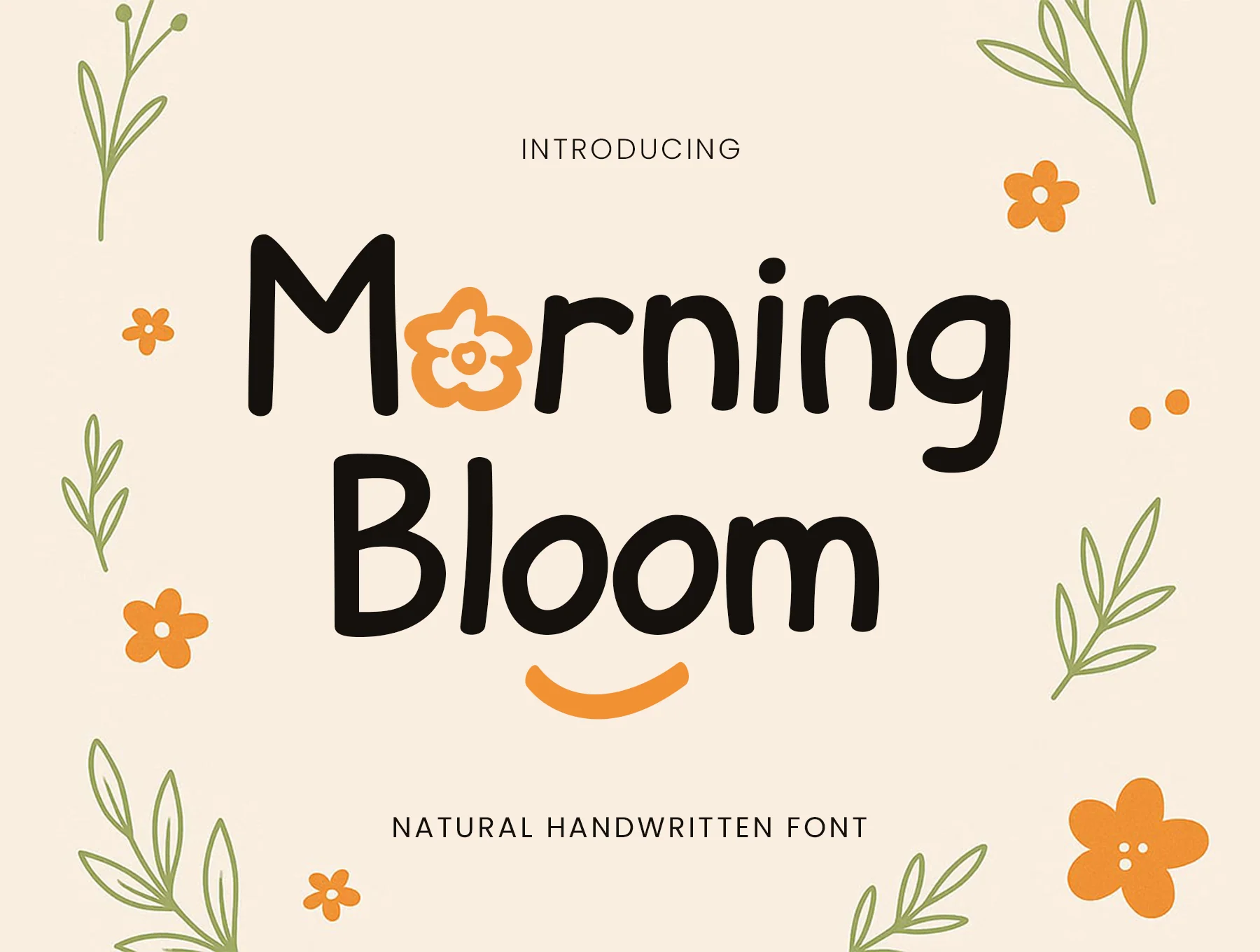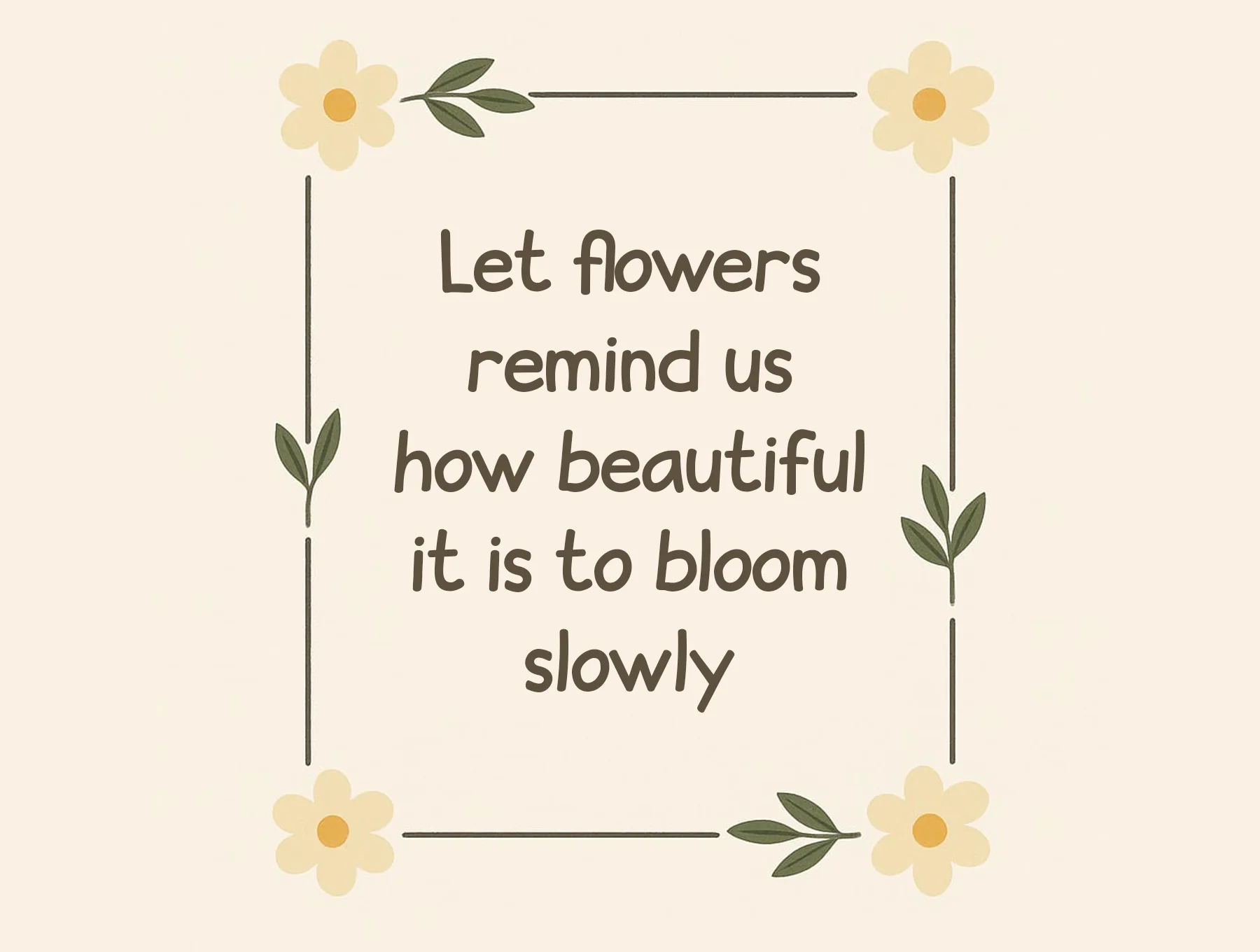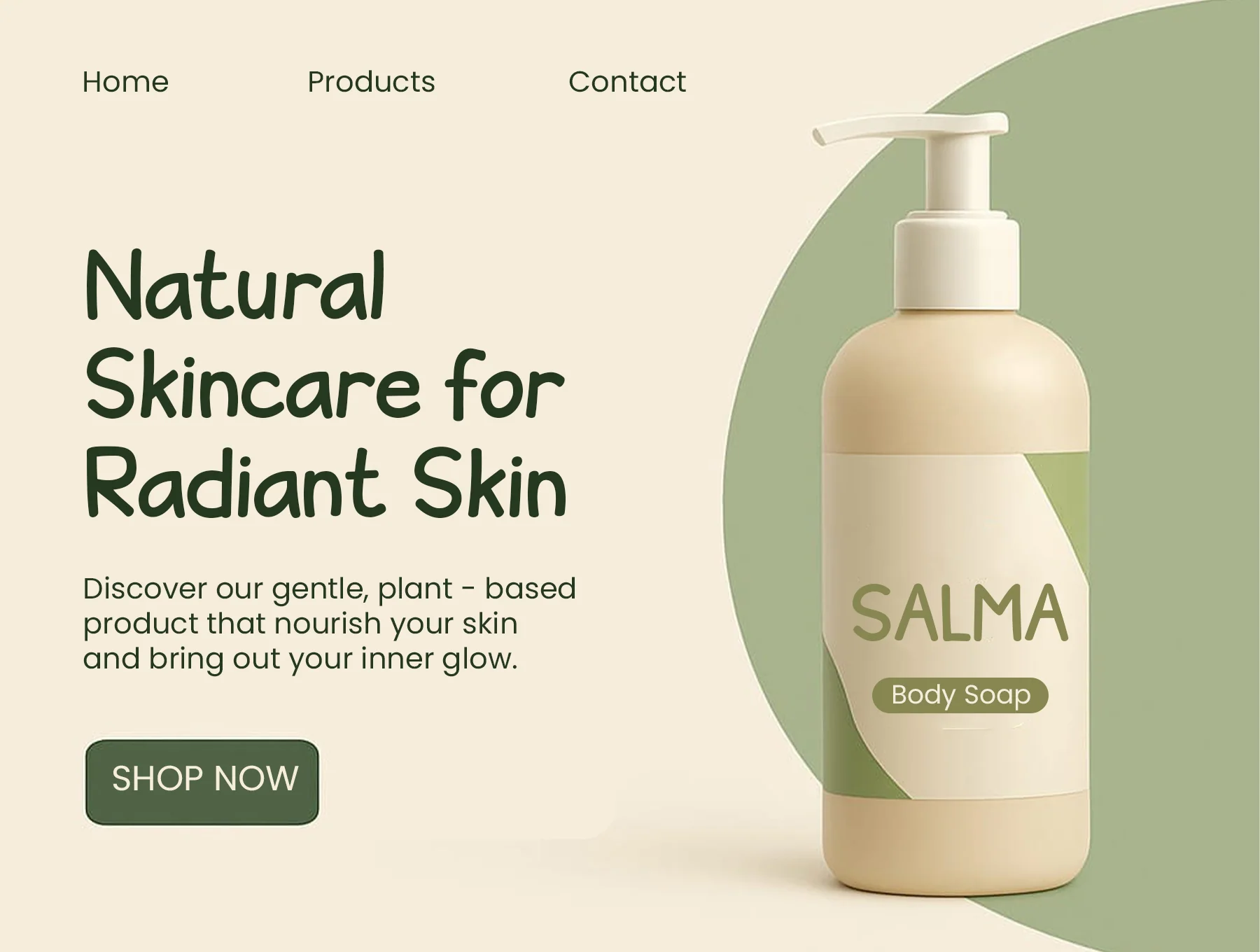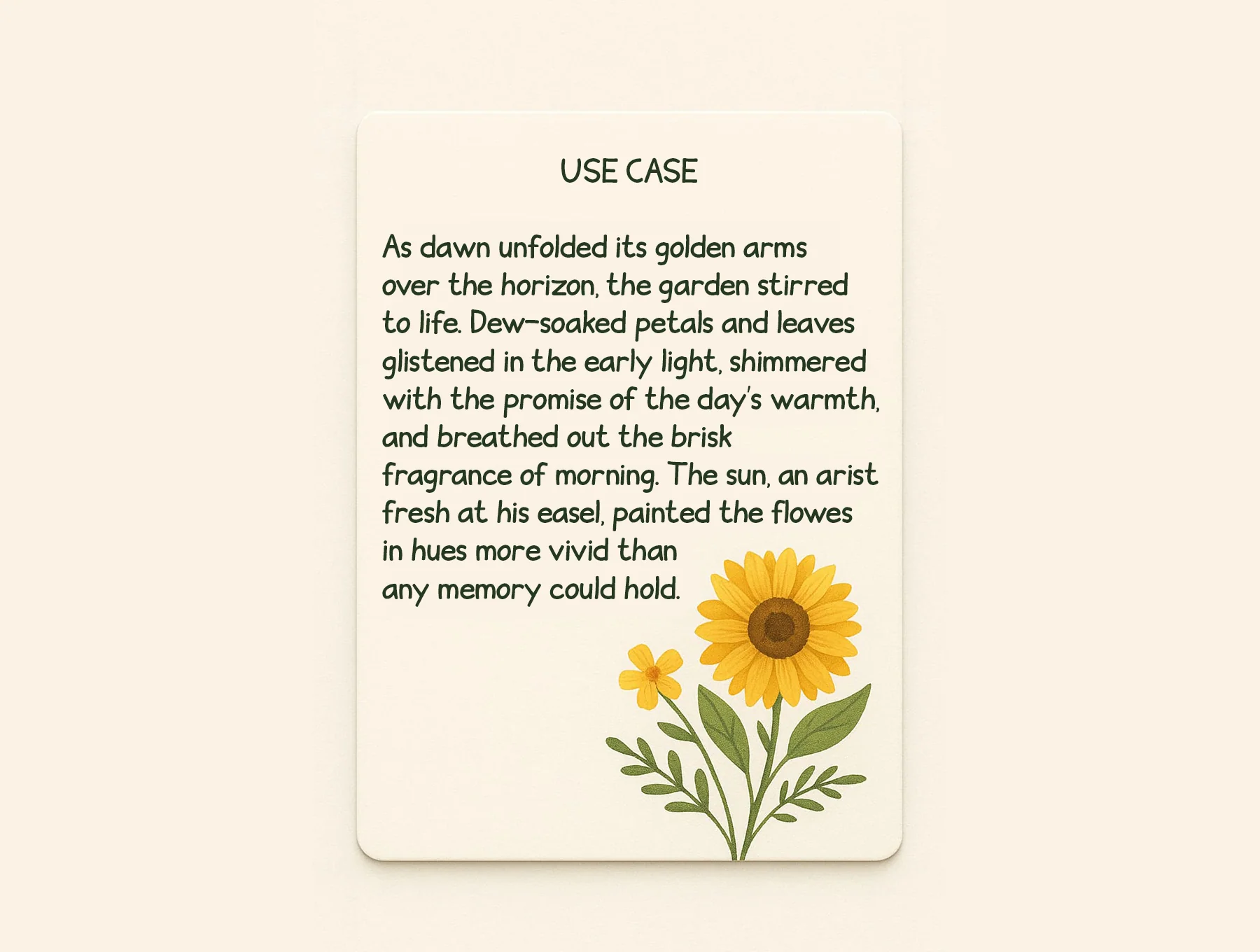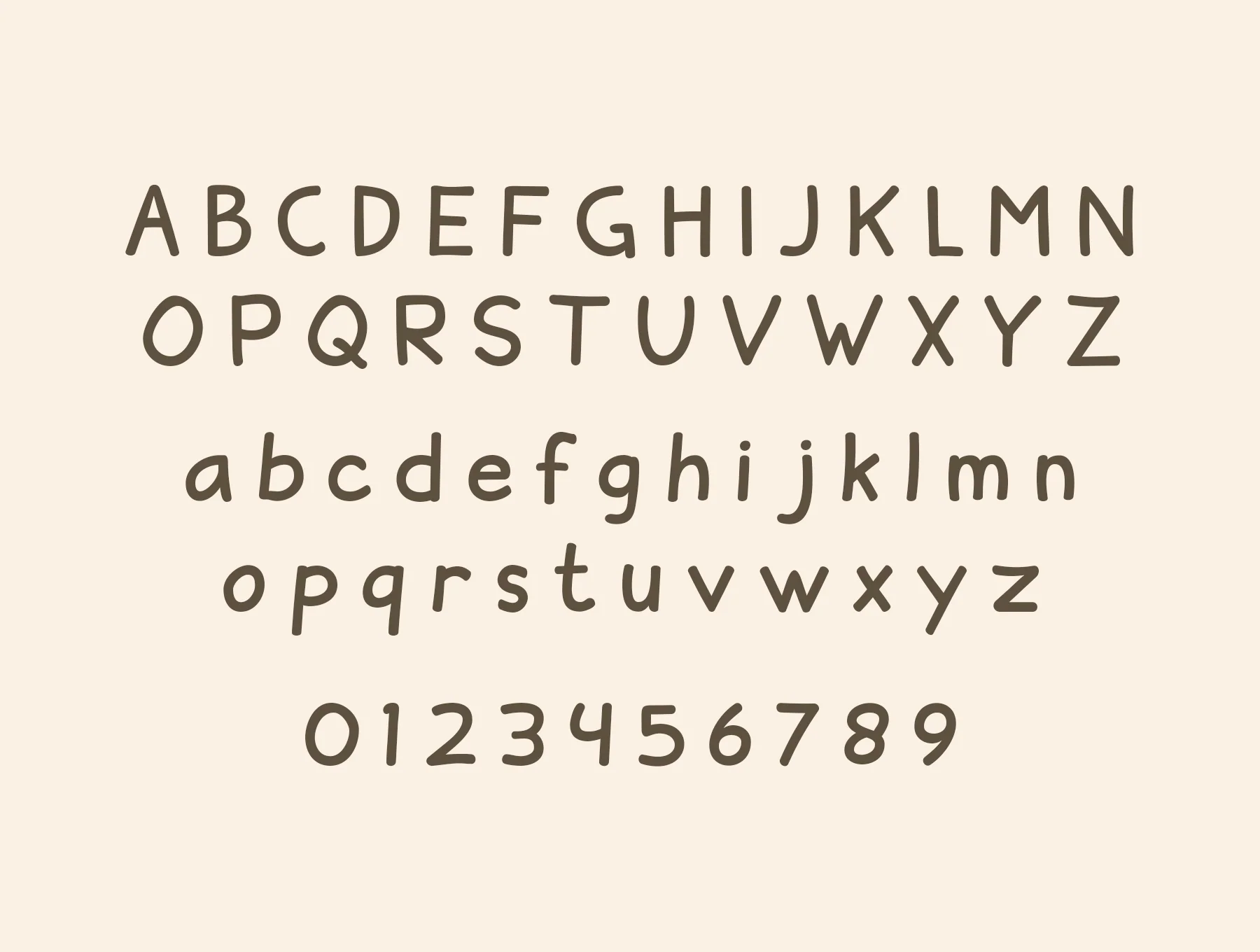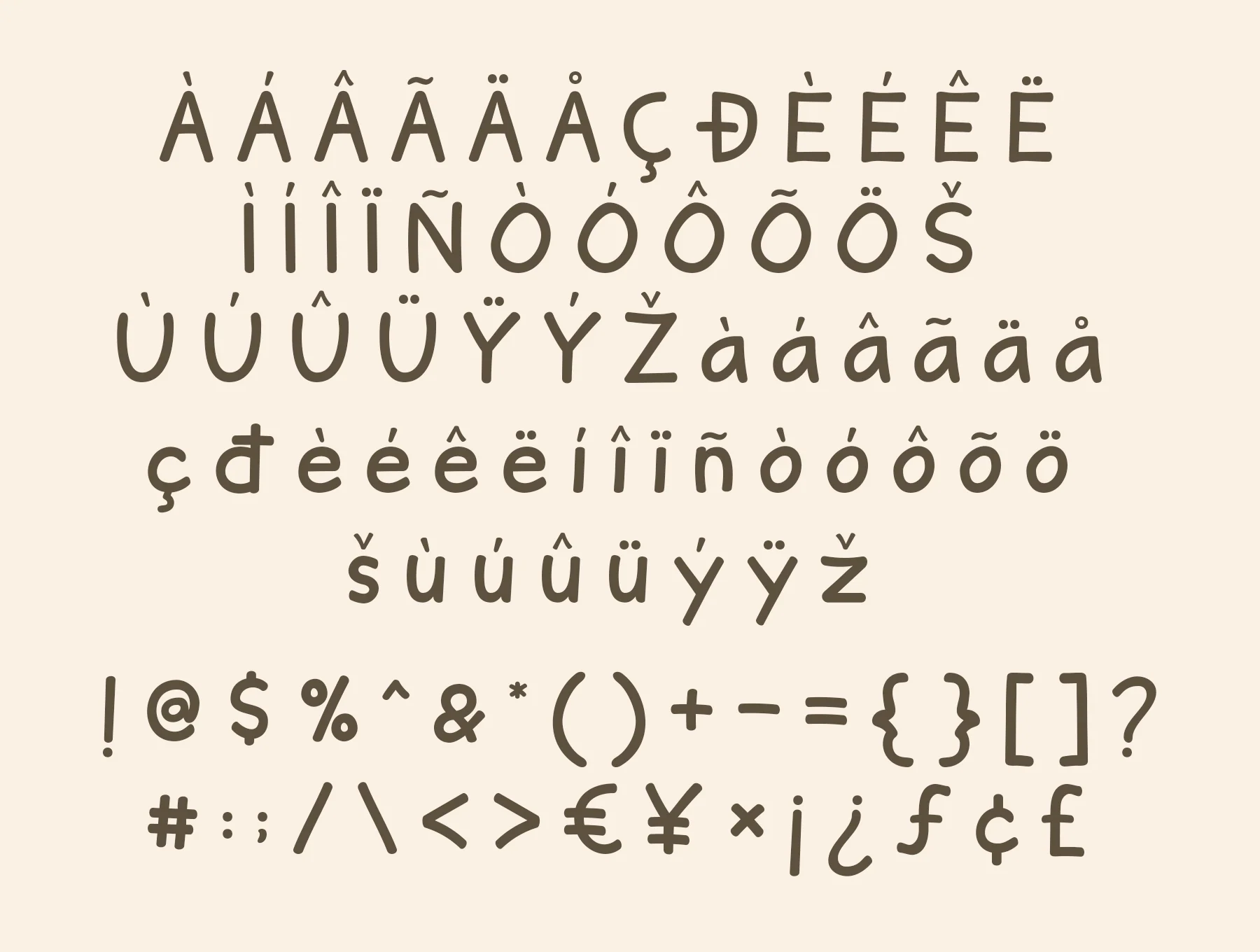
Morning Bloom
Organic Handwritten Typeface
Whimsical handwritten style
Capital letters, small letters, and numerals
Punctuation with multilingual support
Morning Bloom is a gentle handwritten font shaped by nature’s quiet charm and fresh morning glow. Its fluid lines add warmth, sincerity, and an organic touch to branding, packaging, skincare labels, journals, poetry cards, wedding stationery, social posts, and botanical designs. Includes upper/lowercase, numerals, punctuation, multilingual characters, and a smooth handmade style.